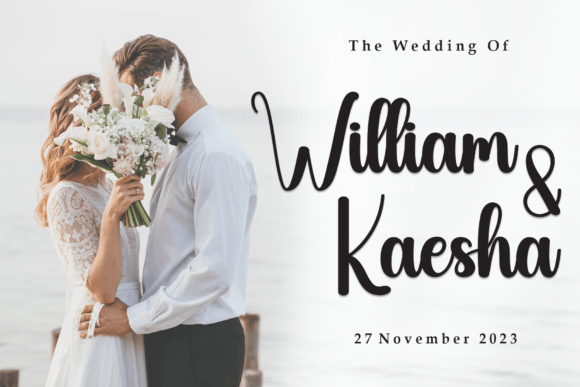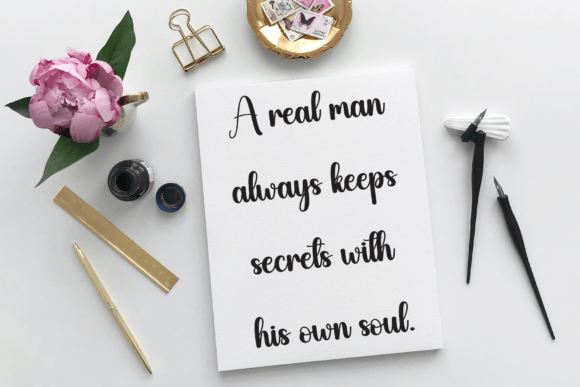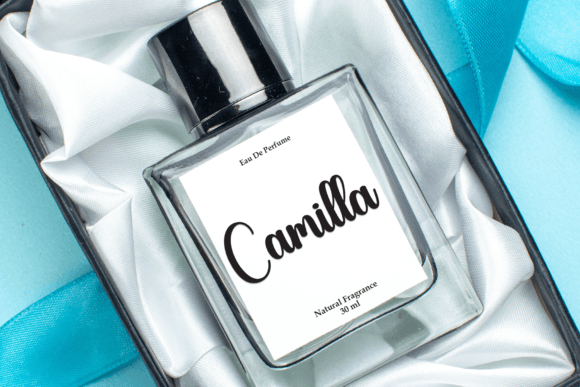
Introduction to Santa Bookmark Font
Santa Bookmark is a sweet and friendly handwritten display font.
Cute and fun, this font is ideal for writing wedding invitations, cards, or any other design that might need a fun touch .
Key Features of Santa Bookmark Font
Why Choose Santa Bookmark Font?
Santa Bookmark Font offers exceptional quality and versatility, making it a valuable addition to your design toolkit. Whether you’re creating for personal projects or commercial use, Santa Bookmark Font delivers professional results.